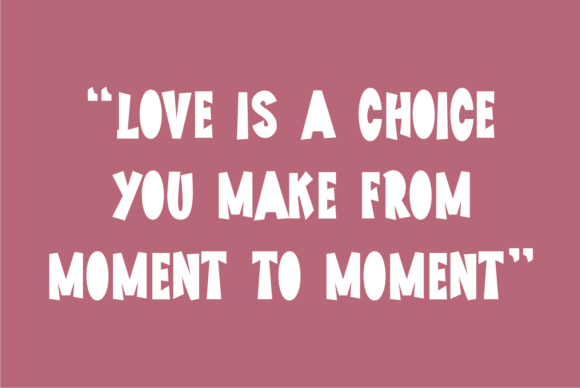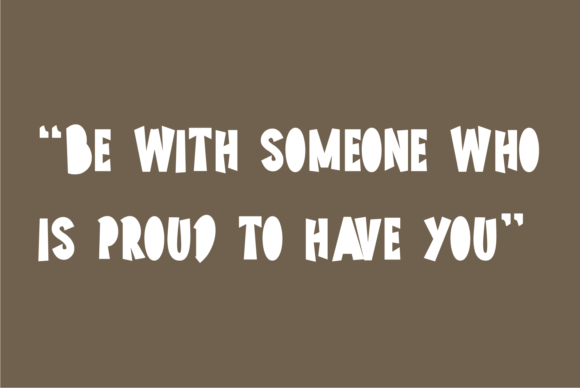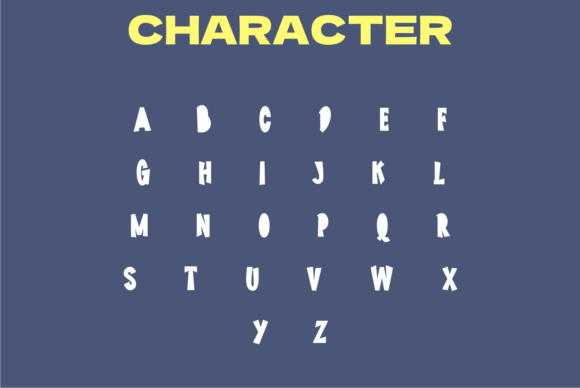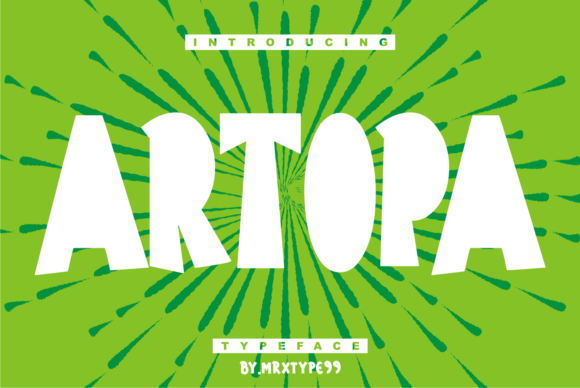
Introducing Artopa Font: The Ultimate Display Font for Creative Projects
Are you tired of using the same old fonts for your creative projects? Look no further! Artopa Font is here to revolutionize the way you approach typography. This thick-lettered and cool display font is designed to make a statement, adding a strong visual effect to your creations that will instantly set them apart from the rest.
The Power of Artopa Font
At its core, Artopa Font is simple yet powerful. Its bold and chunky letters are carefully crafted to grab attention and make a lasting impression. Whether you’re a designer, craftsperson, or DIY enthusiast, this font is perfect for anyone looking to add a touch of personality to their projects.
What Makes Artopa Font So Special?
- Unique Visual Effect: Artopa Font’s thick letters create a striking visual effect that will make your creations stand out from the crowd.
- Versatility: This font is perfect for a wide range of projects, from posters and flyers to social media graphics and craft projects.
- Easy to Read: Despite its bold design, Artopa Font is surprisingly easy to read, making it perfect for headlines, titles, and short paragraphs.
- Customizable: With its simple yet effective design, Artopa Font can be easily customized to fit your brand’s style and aesthetic.
How to Use Artopa Font in Your Projects
Using Artopa Font in your projects is easy! Here are a few ideas to get you started:
- Posters and Flyers: Create eye-catching posters and flyers with Artopa Font as the centerpiece.
- Social Media Graphics: Use Artopa Font to create bold and engaging social media graphics that will grab attention.
- Craft Projects: Add a personal touch to your craft projects, such as handmade cards, gift tags, and scrapbook pages.
- Branding and Identity: Use Artopa Font as a bold and statement-making font for your brand’s identity, including logos, business cards, and letterheads.
Tips and Tricks for Getting the Most Out of Artopa Font
Here are a few tips and tricks to help you get the most out of Artopa Font:
- Experiment with Colors: Try pairing Artopa Font with different colors to create a unique and eye-catching effect.
- Play with Size: Experiment with different font sizes to create visual interest and hierarchy.
- Combine with Other Fonts: Try pairing Artopa Font with other fonts to create a unique and interesting typography combination.
| Font Name | Artopa Font |
| Author | MRXTYPE |
Artopa Font is a game-changing display font that is sure to take your creative projects to the next level. With its bold and chunky letters, this font is perfect for anyone looking to add a touch of personality and style to their work. Whether you’re a designer, craftsperson, or DIY enthusiast, Artopa Font is a must-have font that will instantly make your creations more appealing than any others!